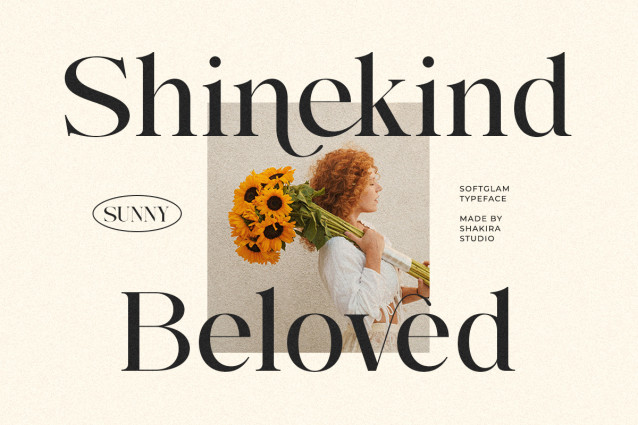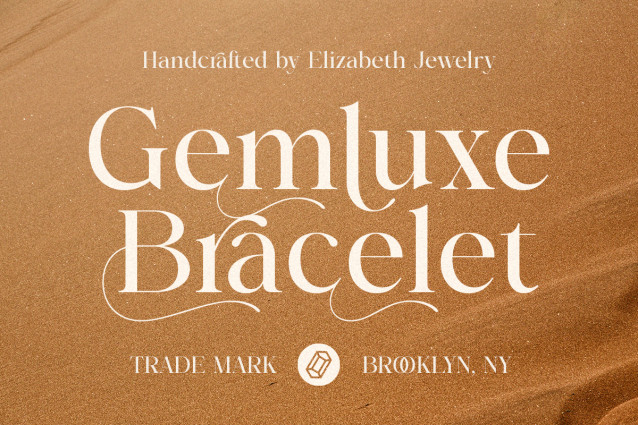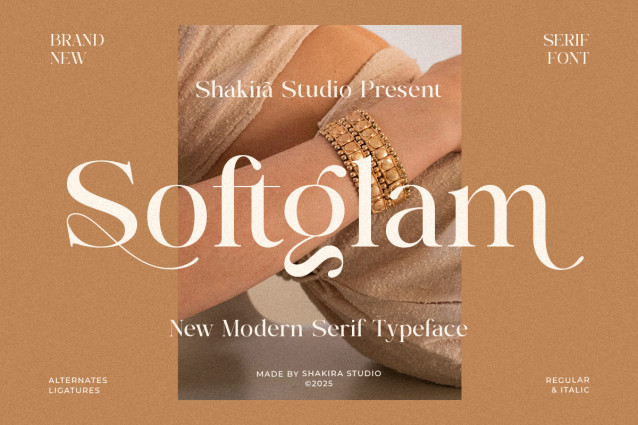
Softglam Font
Softglam Font a sophisticated look that feels both feminine and powerful. Perfect for jewelry branding, cosmetic packaging, boutique logos, and stylish editorial layouts.